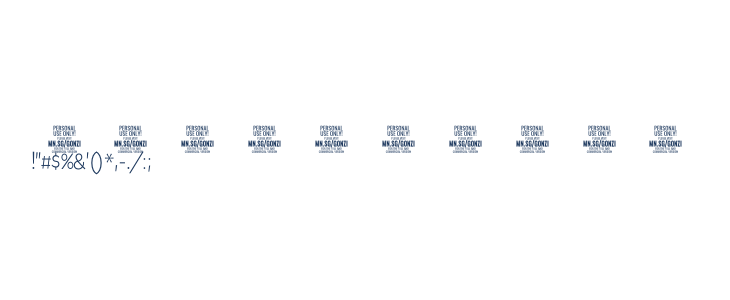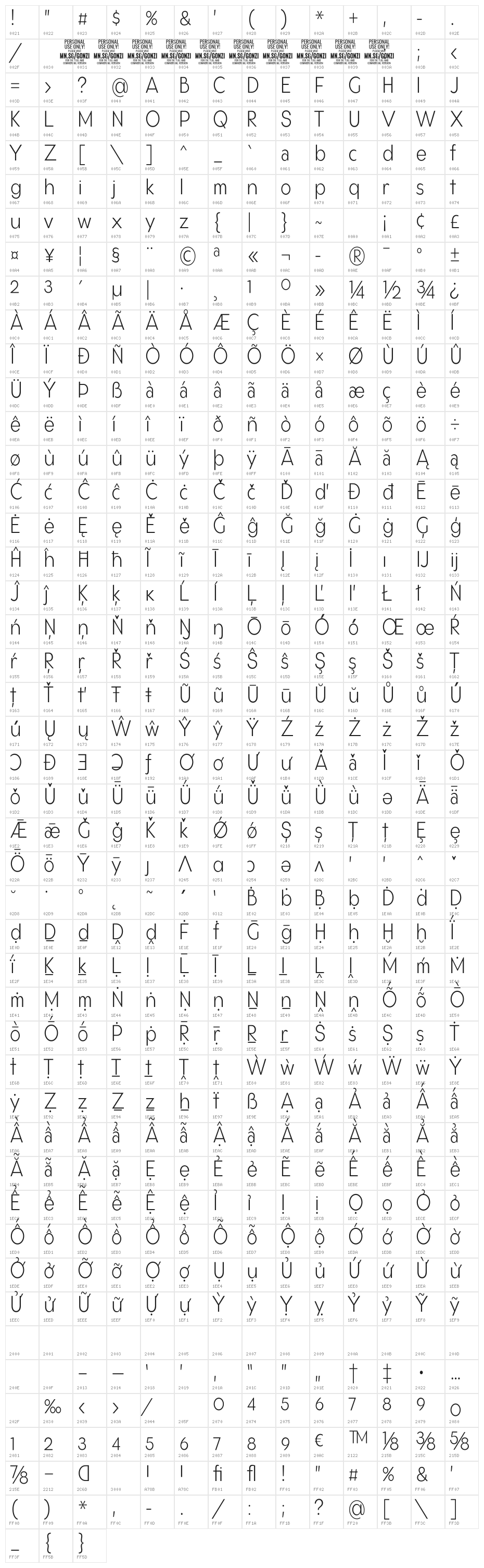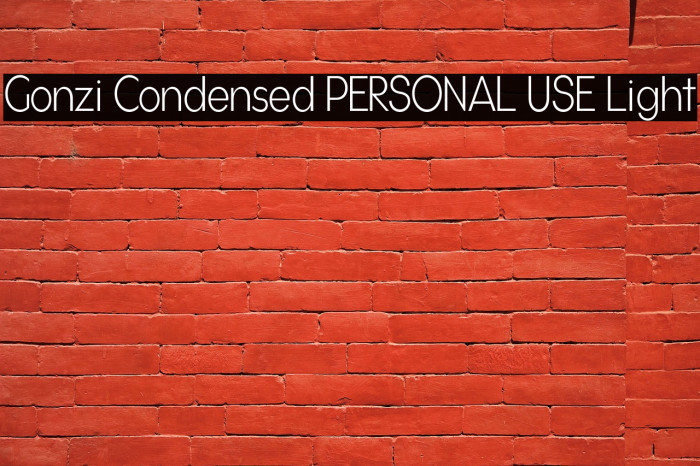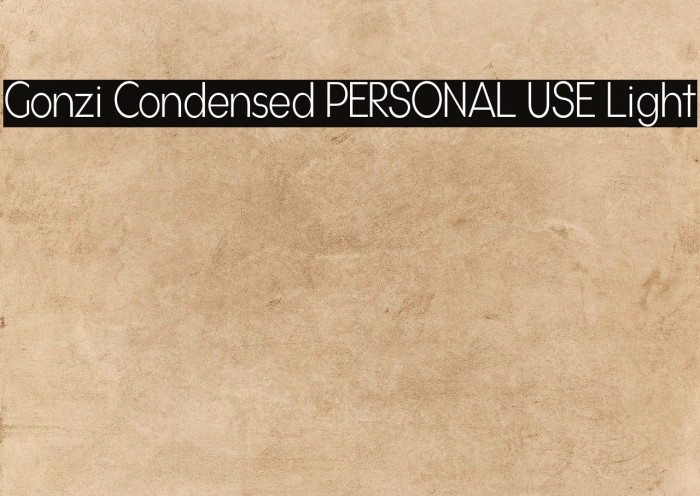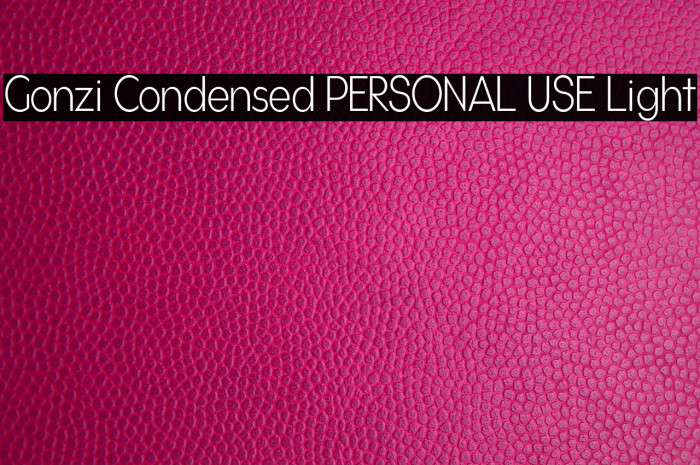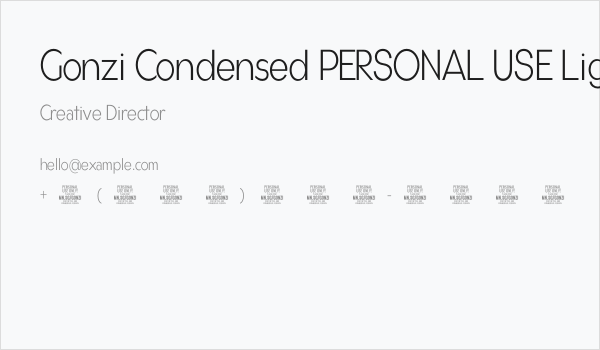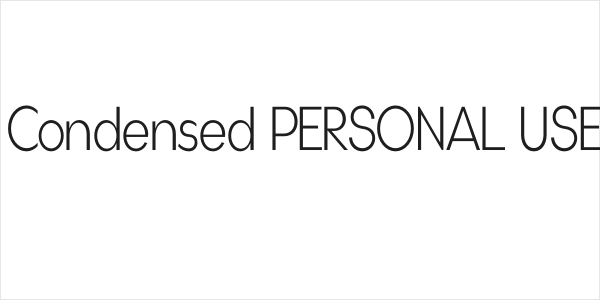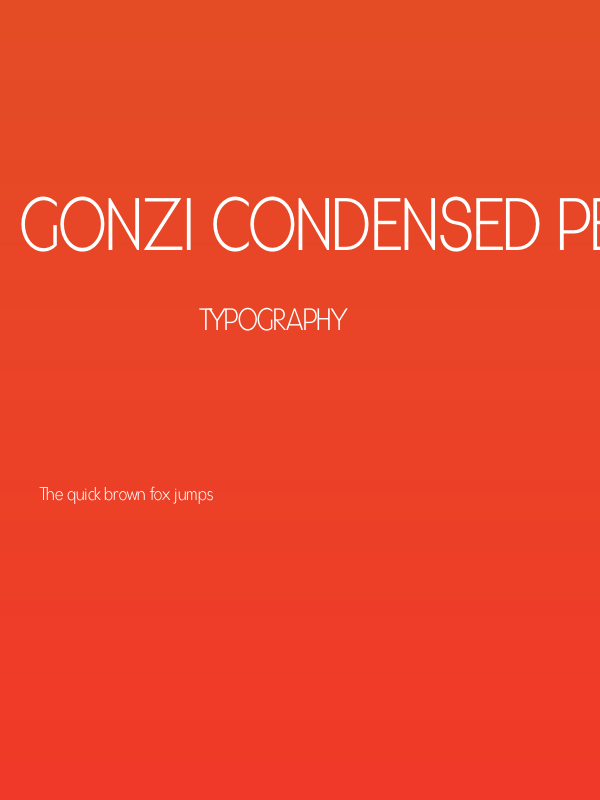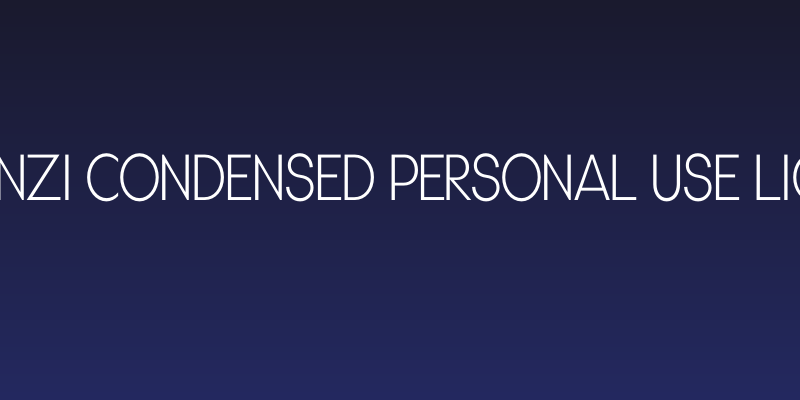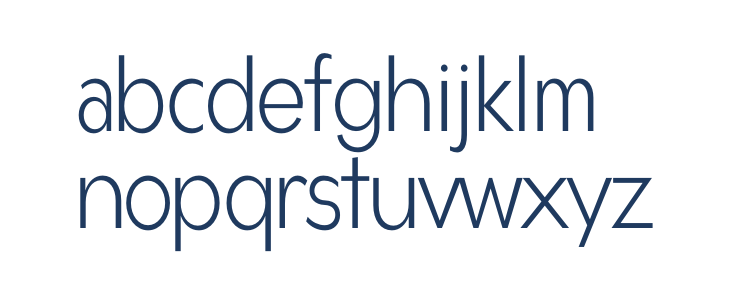
Gonzi Condensed PERSONAL USE Light Font
Gonzi Condensed PERSONAL USE Light Description
This font features a sleek, modern design with a condensed structure that emphasizes verticality. The characters are clean and minimalistic, with a uniform stroke width that contributes to its light appearance. The uppercase and lowercase letters maintain a consistent style, offering a harmonious look across different text sizes. The numerals and special characters are designed to match the overall aesthetic, ensuring a cohesive appearance in any application. Its simplicity and elegance make it suitable for a variety of design projects.